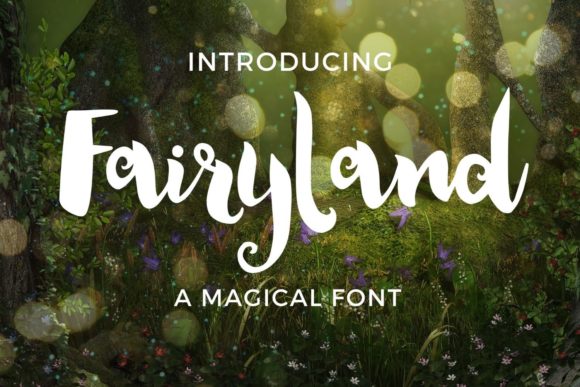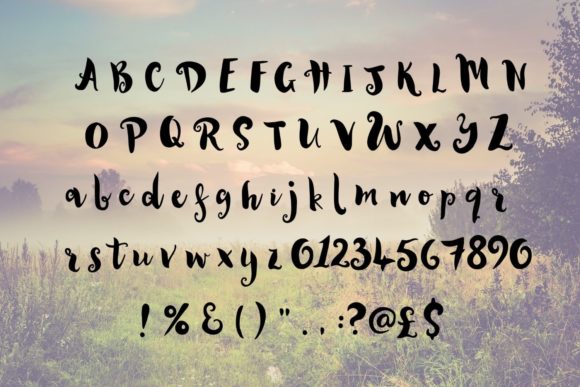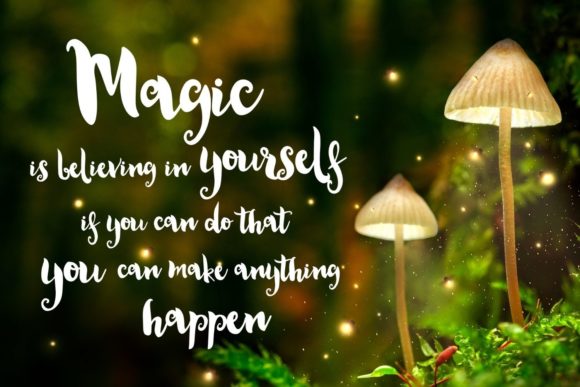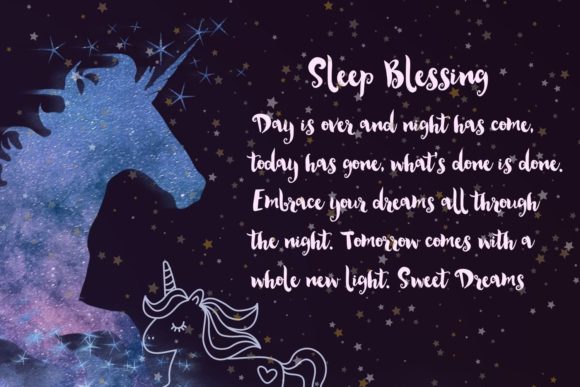
About Fairyland Font
Fairyland is a lovely script font featuring charming, playful characters that seem to dance along the baseline. Add this font to your most creative ideas, and notice how it makes them stand out!